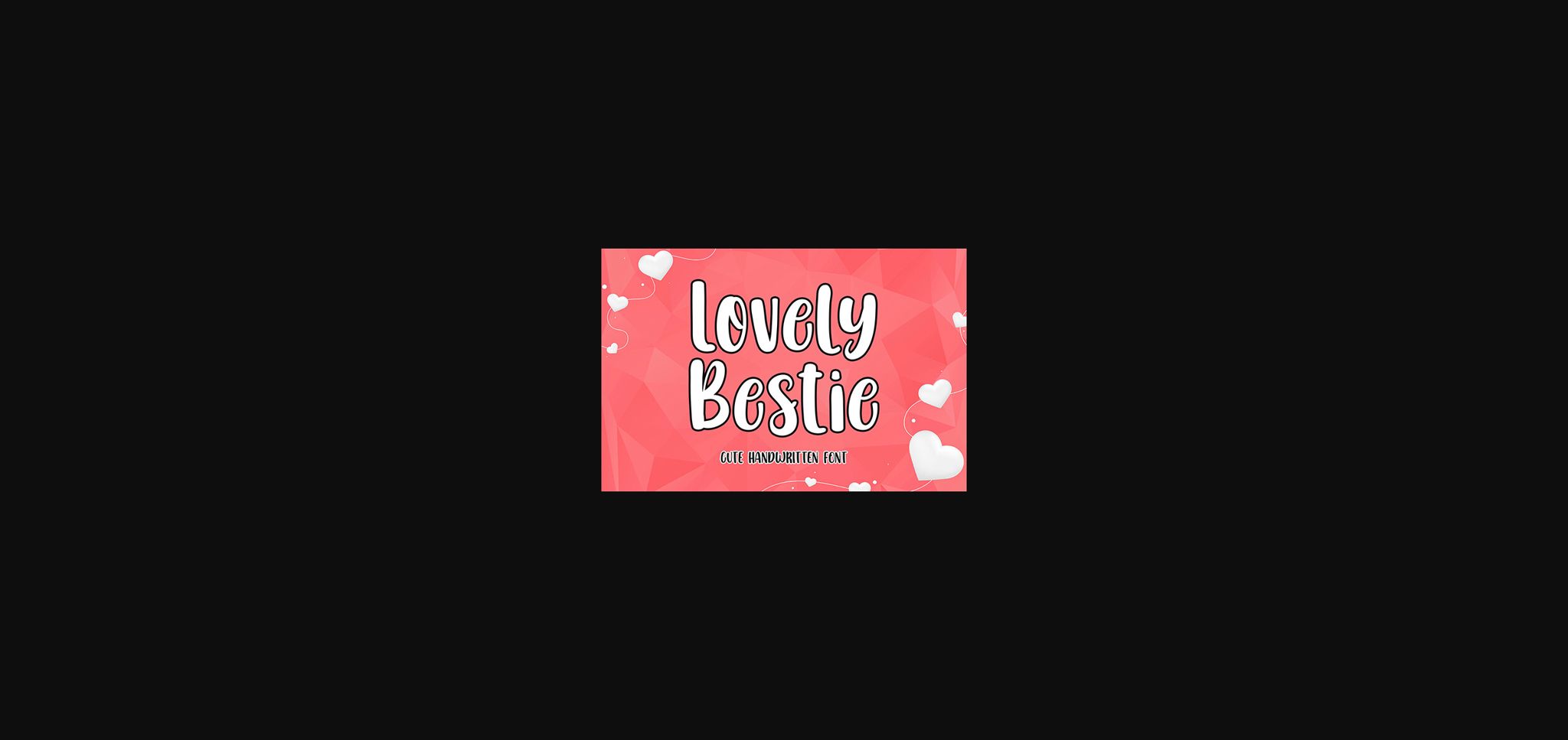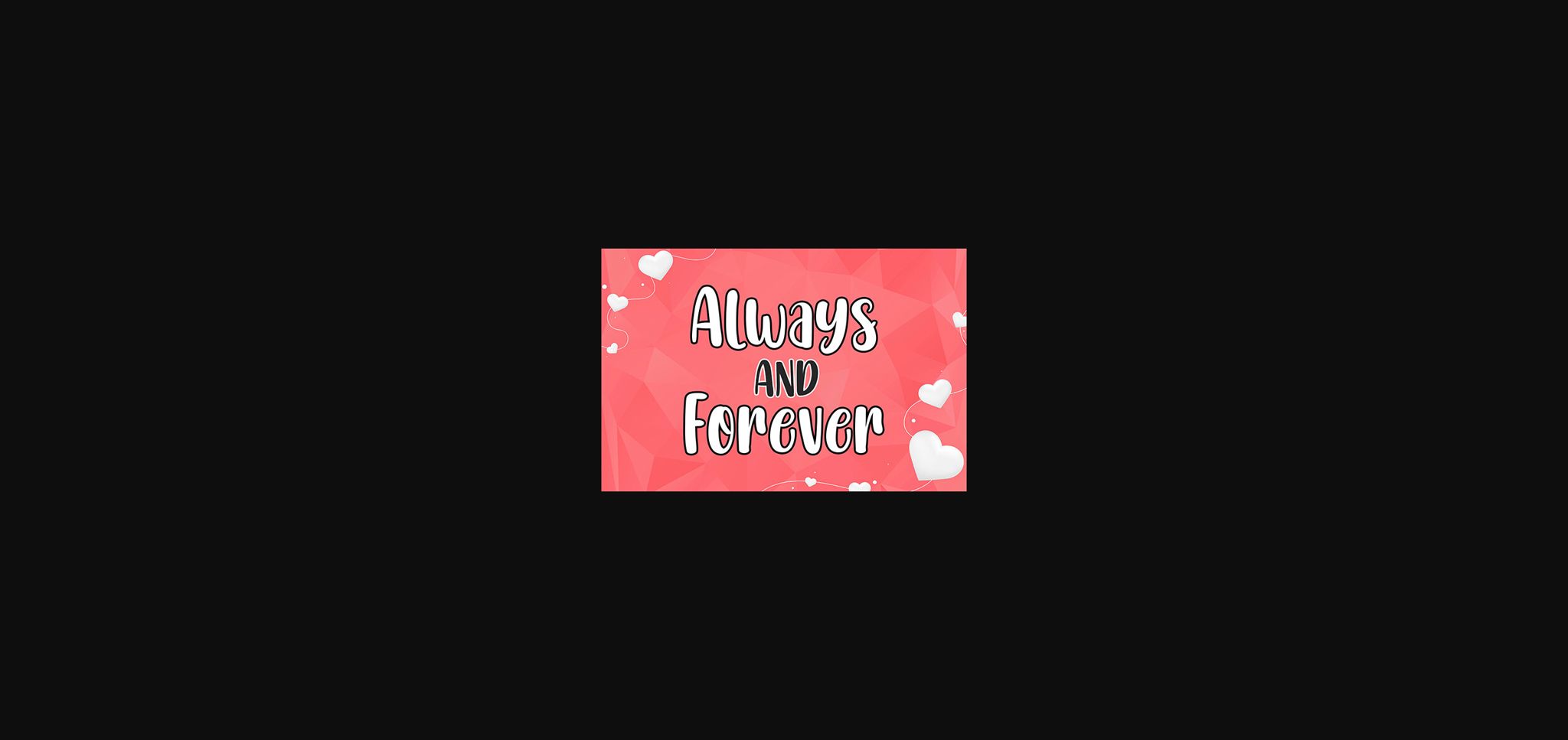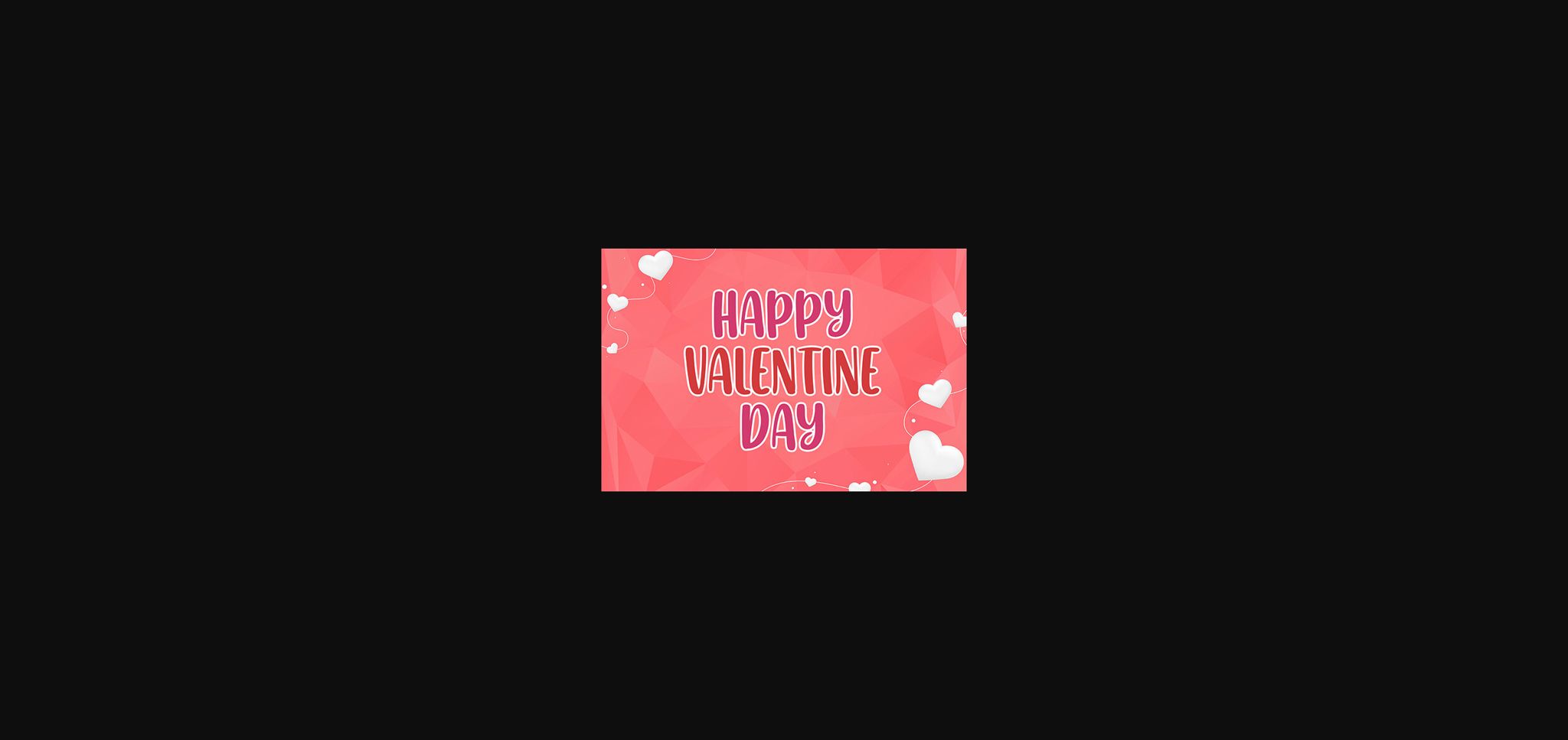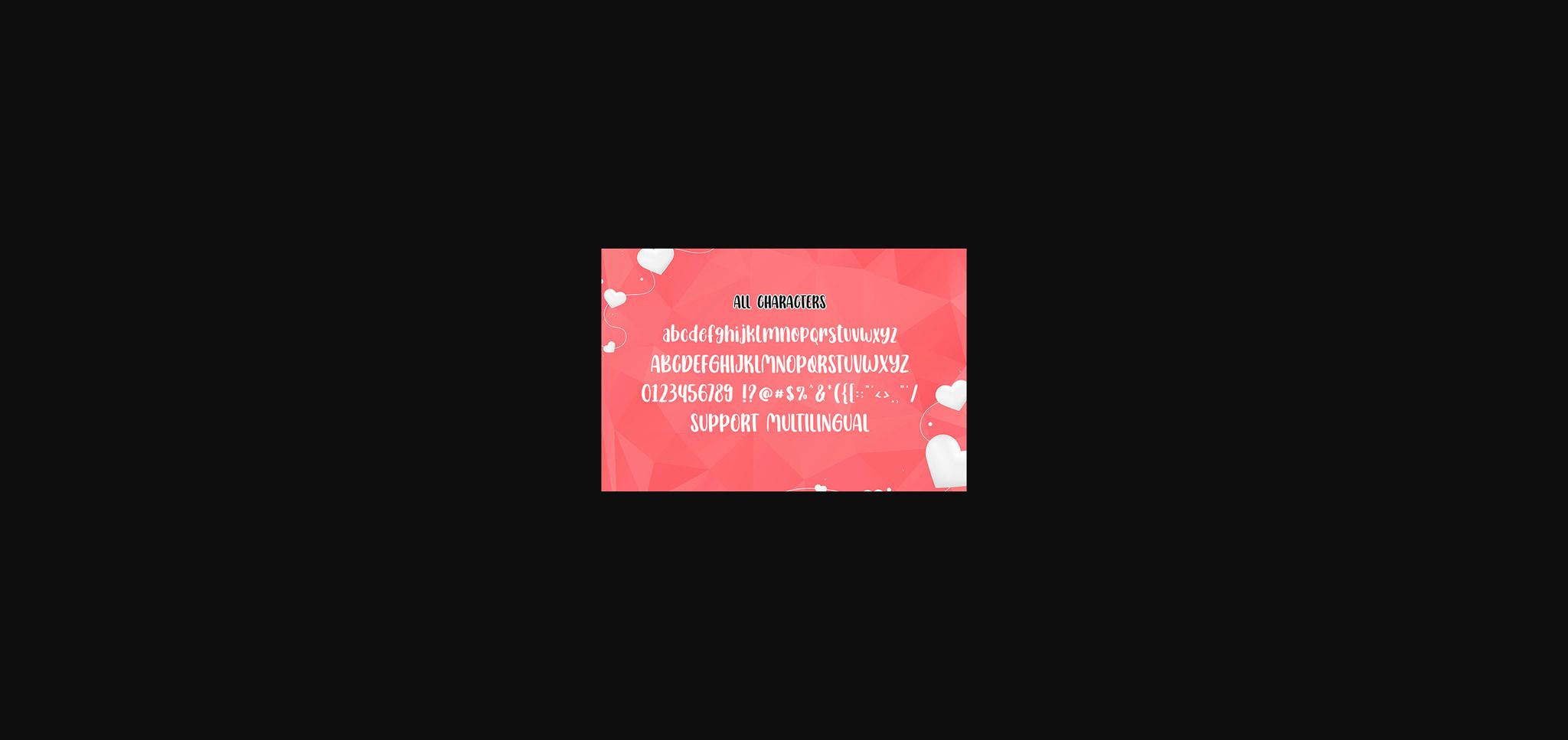
Lovely Bestie Font
About Lovely Bestie Font
Lovely Bestie, a sweet sans-serif font, captures the essence of friendship and warmth. With soft, flowing strokes and a touch of whimsy, it brings a delightful, personal touch to your designs. Perfect for cards, invitations, or any project celebrating the joy of connections, Lovely Bestie radiates affection and charm.